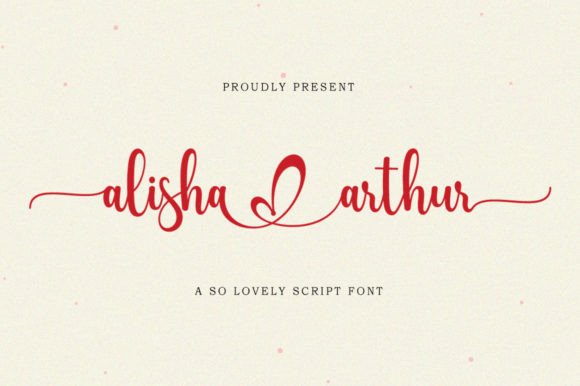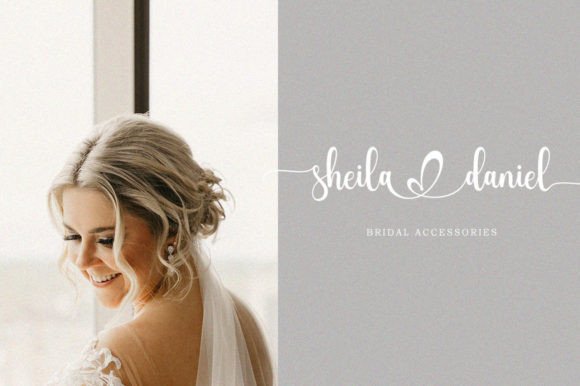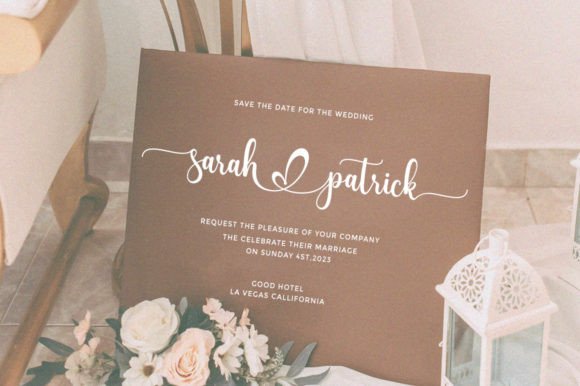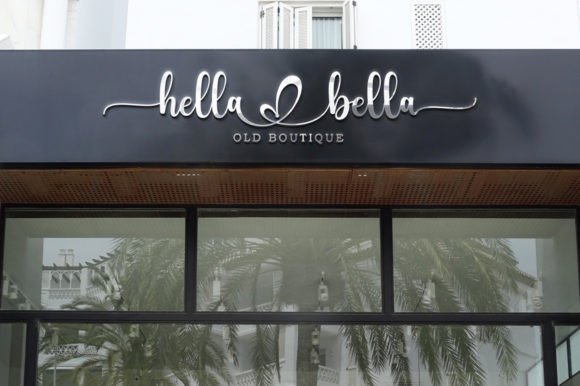
Alisha Arthur Font
About the Alisha Arthur Font
Step up your design game with Alisha Arthur Font, a font that exudes confidence and style. Alisha Arthur with its intricate swirls and graceful curves, this stylish and elegant script font exudes sophistication and charm. Its slim and flowing strokes evoke a sense of movement and grace, making it perfect for upscale branding, wedding invitations, and other high-end designs that require a touch of refinement and luxury.
Alisha Arthur Font Usage Examples
Alisha Arthur Font Example